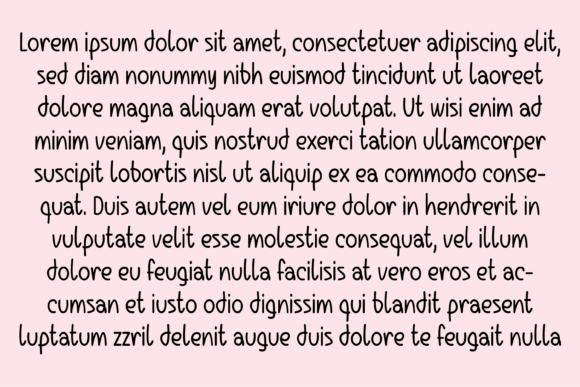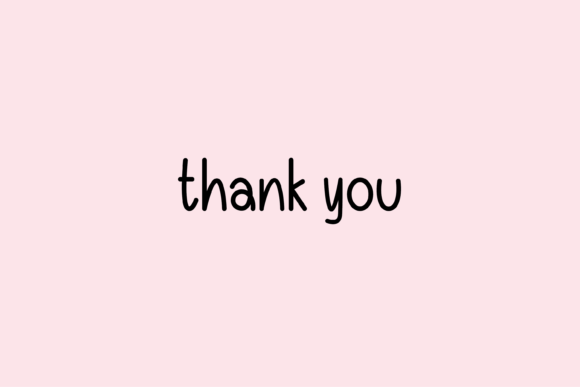
Austin Font: The Perfect Handwritten Font for Your Creative Projects
Are you looking for a font that can add a touch of personality and whimsy to your designs? Look no further than the Austin font! This simple and friendly handwritten font is perfect for designers and crafters who want to create unique and eye-catching projects. In this article, we’ll explore the features and benefits of the Austin font, and show you how it can elevate your designs to the next level.
What is the Austin Font?
The Austin font is a beautiful handwritten typeface that is both whimsical and quirky. Its simple and friendly design makes it perfect for a wide range of creative projects, from logos and wedding invitations to quotes and advertisements. With its unique character and charm, the Austin font is sure to brighten up your designs and leave a lasting impression on your audience.
Key Features of the Austin Font
- Handwritten design: The Austin font has a beautiful handwritten design that gives it a personal and unique touch.
- Simple and friendly: The font’s simple and friendly design makes it easy to read and perfect for a wide range of creative projects.
- Whimsical and quirky: The Austin font has a whimsical and quirky character that adds a touch of personality to your designs.
- Versatile: The font is perfect for a wide range of creative projects, including logos, wedding invitations, quotes, advertisements, print, magazines, and more!
Benefits of Using the Austin Font
So why should you use the Austin font in your creative projects? Here are just a few benefits of this amazing font:
- Adds personality to your designs: The Austin font’s unique character and charm can add a touch of personality to your designs and help them stand out from the crowd.
- Easy to read: The font’s simple and friendly design makes it easy to read, even at small sizes.
- Perfect for creative projects: The Austin font is perfect for a wide range of creative projects, from logos and wedding invitations to quotes and advertisements.
- Can be used confidently: With its unique character and charm, you can add the Austin font to your projects with confidence, knowing it will produce great results.
How to Use the Austin Font in Your Projects
So how can you use the Austin font in your creative projects? Here are a few ideas to get you started:
- Logos: The Austin font is perfect for creating unique and eye-catching logos that reflect your brand’s personality.
- Wedding invitations: The font’s whimsical and quirky character makes it perfect for wedding invitations and other event stationery.
- Quotes and advertisements: The Austin font is great for creating eye-catching quotes and advertisements that will grab your audience’s attention.
- Print and magazines: The font is also perfect for use in print and magazines, where its unique character and charm can add a touch of personality to your designs.
Tips for Getting the Most Out of the Austin Font
Here are a few tips for getting the most out of the Austin font:
- Experiment with different sizes and colors: The Austin font looks great at a wide range of sizes and colors, so don’t be afraid to experiment and find the perfect combination for your project.
- Pair it with other fonts: The Austin font pairs well with other fonts, so try combining it with other typefaces to create a unique and eye-catching design.
- Use it consistently: To get the most out of the Austin font, use it consistently throughout your project to create a cohesive and professional look.
| Font Name | Austin Font |
| Author | Woracado |
In conclusion, the Austin font is a beautiful and versatile handwritten typeface that is perfect for designers and crafters who want to add a touch of personality and whimsy to their designs. With its simple and friendly design, whimsical and quirky character, and wide range of uses, the Austin font is sure to become a favorite in your design arsenal. So why not give it a try and see the amazing results for yourself?